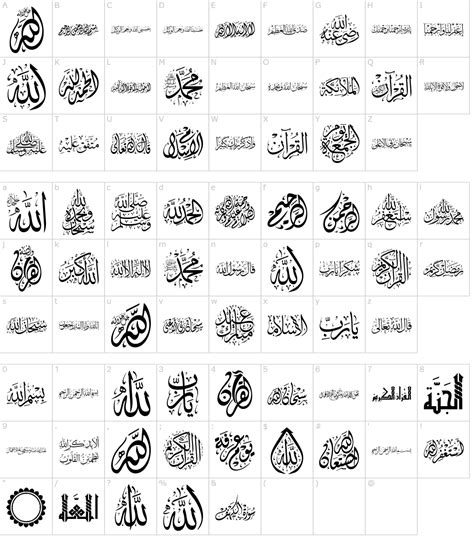
Identify Arabic Fonts Instantly: Your Ultimate Guide, Guys!
So, you’ve stumbled upon a stunning Arabic typeface online or in print and are wondering, “What font is this Arabic?” You’re not alone, my friends! It’s a super common question, especially when you see beautiful calligraphy or elegant Arabic script that just speaks to you. Well, guess what? You’ve landed in the right spot. Today, we’re diving deep into the world of Arabic typography and arming you with all the tools and tricks you need to identify those elusive Arabic fonts. Forget endless scrolling and frustrating guesswork; we’re going to make font identification a breeze. Whether you’re a designer looking to replicate a style, a student researching Arabic script, or just someone with a keen eye for design, this guide is packed with value. We’ll cover the best online tools, manual identification techniques, and even some insider tips that’ll have you spotting Arabic fonts like a pro. So, grab your favorite beverage, get comfy, and let’s unlock the secrets of identifying Arabic fonts together!
Unlocking the Mystery: Why Identifying Arabic Fonts Matters
Alright, let’s chat about why you’d even want to know what a specific Arabic font is. It’s more than just a random curiosity, trust me! For designers and creatives, identifying Arabic fonts is crucial. Imagine you’re working on a branding project, a website, or a print piece, and you see an Arabic font that perfectly captures the vibe you’re going for. Knowing the name of that font means you can source it, license it (if needed), and use it legally in your work. It saves you countless hours of searching for similar styles, which can be a real time sink, especially with the nuances of Arabic script. Plus, using the exact font you admire adds a professional polish and authenticity to your designs that’s hard to beat. But it’s not just for the pros. Students studying Arabic calligraphy or Islamic art often need to identify specific scripts for research papers or historical context. Knowing the font helps them understand the era, the style, and the potential origin of the script they’re analyzing. Think about historical manuscripts or modern architectural designs – each font tells a story. Even for casual users, there’s a satisfaction in knowing the name of something beautiful you’ve encountered. It’s like knowing the name of a song you love! This quest for identification often stems from encountering unique Arabic fonts that stand out due to their historical roots, calligraphic flair, or modern minimalist appeal. The diversity of Arabic typography is vast, ranging from ancient Kufic styles to fluid Naskh and elegant Thuluth, not to mention the plethora of contemporary digital fonts. Each style has its own character and application, making identification a key step in appreciating and utilizing Arabic typography effectively. So, whether it’s for professional necessity, academic pursuit, or personal appreciation, identifying Arabic fonts is a valuable skill that opens doors to a deeper understanding and application of this rich visual language.
The Power of Online Tools: Your Font Detective Arsenal
Now, let’s get to the good stuff: the tools that make identifying Arabic fonts way easier. In the digital age, we’re incredibly lucky to have access to some seriously powerful online resources. Think of these as your go-to font detective arsenal. The most famous and often the first stop for many is WhatTheFont! by MyFonts. You simply upload a clear image of the text, and their algorithms work their magic to suggest matching or similar fonts. While it’s primarily trained on Latin alphabets, it can sometimes pick up on Arabic characters, especially if the characters are very distinct or if the website has a good database. However, we need to be realistic: Arabic font identification is a bit more specialized. That’s where tools designed specifically for or with better support for non-Latin scripts come in handy. One such gem is Font Squirrel’s Font Identifier . While also heavily Latin-biased, their database is extensive, and sometimes, if the font has been tagged with broader categories, you might get lucky. Another fantastic option, especially if you suspect the font has a calligraphic origin, is to explore sites dedicated to Arabic calligraphy and typography. Websites like Khatt Foundation or even specialized forums and communities where designers and typographers gather can be invaluable. You can post a clear screenshot and ask for help. Often, someone in the community will recognize it instantly! Don’t underestimate the power of social media either. Platforms like Instagram, Behance, or even Reddit (subreddits like r/typography or r/arabic_calligraphy) have active communities. Share a clear image, tag relevant accounts or use appropriate hashtags, and you might be surprised by the responses. For those who are a bit more tech-savvy, browser extensions that allow you to ‘inspect element’ on websites can sometimes reveal the font name if it’s a web font. However, this requires a bit more technical know-how. Remember, the key to using these tools effectively is high-quality images . Make sure the text is clear, well-lit, and not distorted. The larger the sample of text you can provide, the better the chances of accurate identification. So, upload wisely, and let the digital detectives do their work!
Manual Identification: Becoming a Typography Sleuth
Okay, guys, so what if those fancy online tools draw a blank, or you’re offline and need to figure out a font? No sweat! We can totally channel our inner typography sleuth and do some manual identification. This method requires a bit more observation and understanding of font characteristics, but it’s super rewarding. First things first: examine the letterforms . Look closely at the shapes of individual Arabic letters. Are they angular and geometric (like Kufic styles), or are they flowing and curved (like Naskh or Thuluth)? Pay attention to the ascenders (parts that go above the main line) and descenders (parts that go below). Are they long and elegant, or short and stubby? What about the dots (nuqta)? Are they dots, dashes, or subtle strokes? How are they placed? The way the dots are formed and positioned can be a huge clue, especially distinguishing between similar-looking letters like ‘Ba’, ‘Ta’, and ‘Tha’. Next, consider the overall style and personality of the font. Does it feel modern and minimalist, or traditional and ornate? Is it bold and impactful, or delicate and refined? Think about the x-height (the height of lowercase letters like ‘seen’ without the upstroke) and the overall proportion of the letters. Are the letters wide or condensed? Are the bowls (closed or partially closed counters) of letters like ‘Meem’ or ‘Waw’ round, oval, or elongated? Also, look at the connections between letters . In Arabic, letters connect, and the style of these connections can vary significantly. Are the connections smooth and seamless, or are there distinct breaks? How do the diacritical marks (harakat) look? Are they integrated into the design, or are they separate elements? Finally, context is key . Where did you see this font? Was it on a historical manuscript, a modern website, a luxury brand logo, or a children’s book? The context often provides strong clues about the font’s intended style and origin. For instance, a font on an ancient Quranic manuscript is unlikely to be a contemporary digital font. By systematically analyzing these elements – letter shapes, dots, ascenders/descenders, overall feel, and context – you can start to narrow down the possibilities significantly. It’s like putting together a puzzle, and the more pieces you analyze, the clearer the picture becomes. This hands-on approach not only helps you identify the font but also deepens your appreciation for the art of Arabic typography.
Common Pitfalls and How to Avoid Them
Alright, let’s talk about the bumps in the road – the common pitfalls you might encounter when trying to identify Arabic fonts, and more importantly, how to sidestep them like a pro. One of the biggest culprits is poor image quality . If your screenshot is blurry, pixelated, or the text is too small, even the best tools (and your keen eyes) will struggle. Pro Tip: Always try to get the clearest, highest-resolution image possible. If it’s from a website, try to zoom in before taking a screenshot. If it’s a physical print, ensure good lighting and a steady hand. Another common issue is dealing with highly stylized or custom lettering . Sometimes, what looks like a font is actually custom-designed calligraphy or logotype. In these cases, you won’t find an exact match because it’s a one-of-a-kind piece. What to do: Acknowledge that it might be custom work. Instead of looking for an exact match, try identifying fonts that have a similar style or vibe . Online tools can still help here by suggesting look-alikes. Also, be aware of font variations and ligatures . Arabic fonts often have multiple forms for letters (initial, medial, final, isolated) and can create complex ligatures (combined characters). Tools might struggle to recognize these combined forms correctly. Solution: Try to isolate individual letters in your image if possible, or look for a section of text where letters are more standardly connected. Be patient and understand that tools might offer several suggestions, and you’ll need to review them. Don’t forget about web fonts vs. system fonts . Sometimes, a font looks great on a website because it’s a web font loaded specifically for that page. If you try to identify it using traditional methods, you might not find it easily if it’s not a widely distributed font file. Tip: Use browser developer tools (like Inspect Element) on websites to see if you can find the font name listed in the CSS code. Lastly, language and script confusion . While we’re focusing on Arabic, sometimes scripts can look similar, or fonts might incorporate elements from different calligraphic traditions. Advice: Double-check that you’re definitely looking at Arabic script. If you’re unsure, consult resources that help differentiate between Arabic, Persian, Urdu, and other Perso-Arabic scripts, as they share many characters but have stylistic differences. By being mindful of these potential pitfalls and employing these strategies, you’ll significantly increase your chances of successfully identifying that Arabic font you’re hunting for. It’s all about being prepared and persistent!
When Tools Fail: Community and Manual Comparison
So, you’ve tried all the automated tools, you’ve scoured the web, and you’re still scratching your head. What’s next? It’s time to tap into the collective brainpower of the design and typography community! Seriously, guys, font identification help is often just a post away. Websites like Reddit have dedicated subreddits (r/identifythisfont, r/typography, r/arabic_calligraphy) where you can post a clear image of the font and ask for assistance. Be specific in your request: mention where you saw the font, what context it was in, and any characteristics you’ve noticed. Many designers and font enthusiasts hang out in these communities and have an uncanny ability to recognize even obscure fonts. Other great places include specialized forums for graphic design or Arabic calligraphy, and even Facebook groups dedicated to typography. Don’t underestimate the power of platforms like Behance or Dribbble; if you see a font you like in a designer’s portfolio, they might be willing to share the font name if you politely ask. Remember to always be courteous and thankful for any help you receive! When direct identification isn’t yielding results, the next best step is manual comparison . This is where your detective skills really shine. Start by searching for categories of Arabic fonts that resemble the one you’re looking for. For example, search for